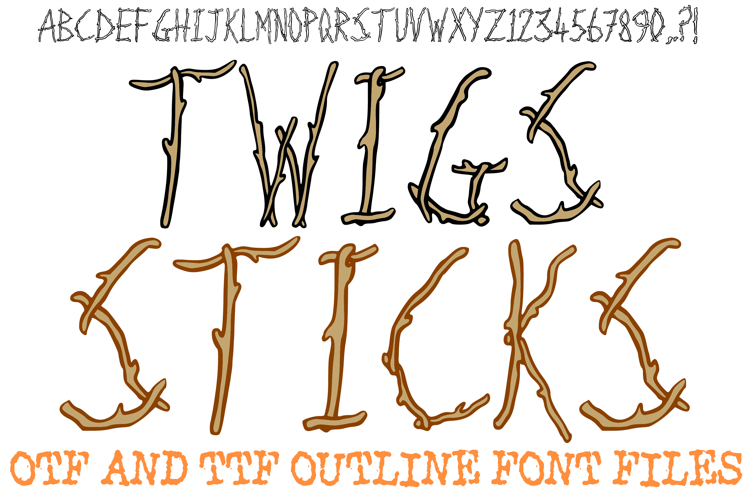
Twigs Sticks Font Wood Logs Tree Lettering ABC OTF Type
Bring the rugged beauty of the great outdoors to your creative projects with the Twigs Sticks Font! This highly detailed display typeface is uniquely crafted from hand-drawn wood logs and organic tree branches, complete with realistic knots and rough textures. It is the perfect choice for camping-themed branding, forest-inspired nursery decor, lodge signage, and any design that needs an authentic, rustic aesthetic.
The natural, uneven silhouettes of the "sticks" provide a genuine handcrafted feel that stands out in both digital and print formats. Whether you are designing a logo for an outdoor adventure company, creating custom campfire invitations, or working on nature-themed scrapbooking, the Twigs Sticks Font offers a professional yet artisan-crafted look that celebrates the wild.
Why Your Designs Will Stand Out:
Realistic Wood Texture: Each character is intricately built using individual twig and log shapes with organic branch details.
Rustic Display Silhouette: The bold, tall letterforms ensure your nature-inspired headlines remain impactful and eye-catching.